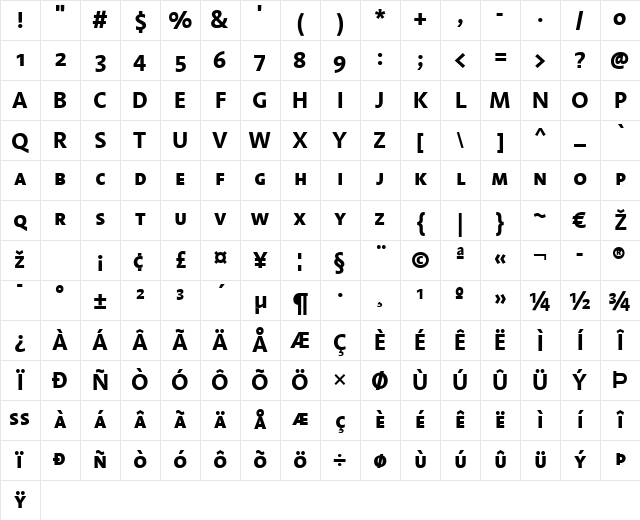
LTAromaSC Bold
Designer: Tim Ahrens
Design Context for LTAromaSC
LTAromaSC is a composed and adaptable typeface that performs quietly and consistently across a wide range of design contexts. Its bold stroke weight gives it real presence on the page.